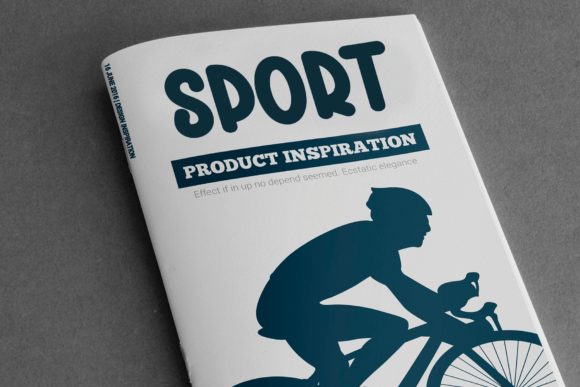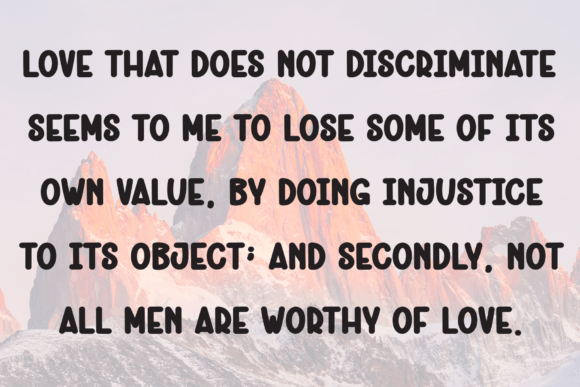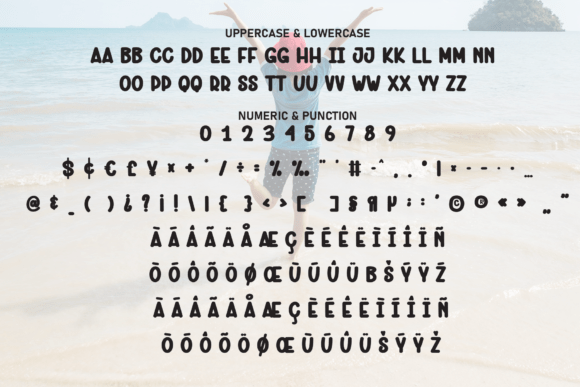
The Delight Beach Font: A Warm and Inviting Addition to Your Design Toolkit
Have you ever been in the middle of a design project, and suddenly, you’re stuck on finding the perfect font? I recall a recent experience where I was working on a branding project for a beachside cafe. The client wanted a font that exuded warmth, friendliness, and a touch of casual elegance. After hours of searching, I stumbled upon the Delight Beach font, which instantly became the perfect fit. In this article, I’ll share my journey with this beautiful font, its features, and how you can make the most of it in your designs.
A Personal Review: What I Love About Delight Beach
The Delight Beach font has quickly become a favorite in my design toolkit, and here’s why:
- ✨ Clean Structure: The font boasts a clean and approachable structure that makes it perfect for a wide range of design projects.
- ✅ Excellent Readability: The balanced letterforms ensure that your message is conveyed clearly and effectively, making it ideal for headlines and body text.
- 💕 Warm and Inviting: Delight Beach has a unique charm that adds a touch of warmth to your designs, making them feel more genuine and engaging.
While Delight Beach is an excellent font, there are a few minor quirks to be aware of:
- ⚠️ Limited Formality: Delight Beach is a casual font, so it might not be the best fit for projects requiring a high level of formality.
- 🤔 Glyph Variety: While the font has a range of glyphs and stylistic alternates, it might not be as extensive as some other fonts on the market.
The Story Behind Delight Beach
Delight Beach was designed with the intention of creating a font that embodies the warmth and approachability of a beachside getaway. The designer aimed to craft a font that would be both clean and inviting, making it perfect for a wide range of design projects. While the actual design process is shrouded in mystery, it’s clear that the font has been carefully crafted to meet the needs of designers and crafters alike.
| Font Name | Delight Beach Font |
| What type of projects is Delight Beach best suited for? | Delight Beach is perfect for branding, headlines, and everyday designs that require a warm and inviting touch. |
| Is Delight Beach a versatile font? | Yes, Delight Beach is a versatile font that can be used in a wide range of design projects, from digital designs to print materials. |
| Does Delight Beach support OpenType features? | Yes, Delight Beach supports OpenType features, including stylistic alternates and glyphs. |